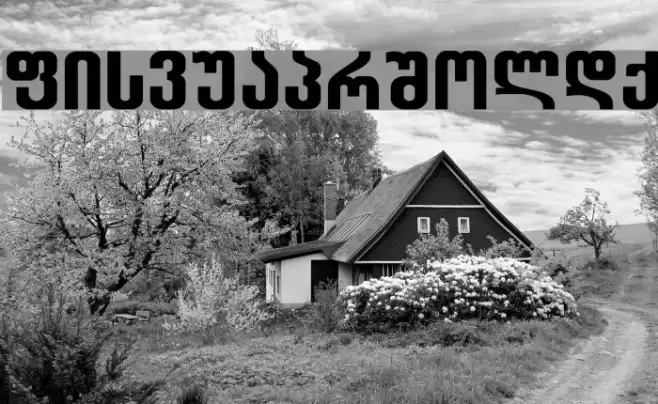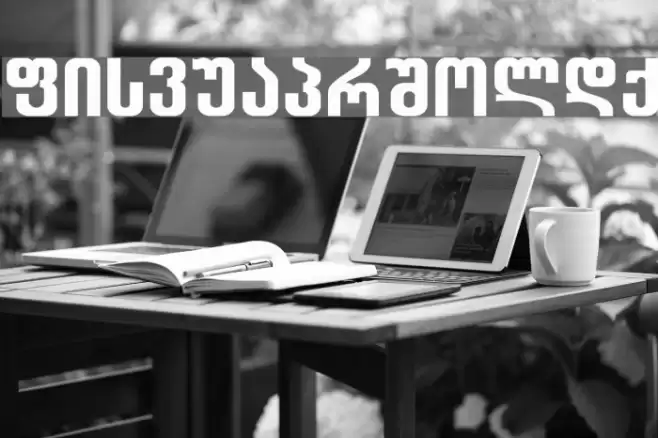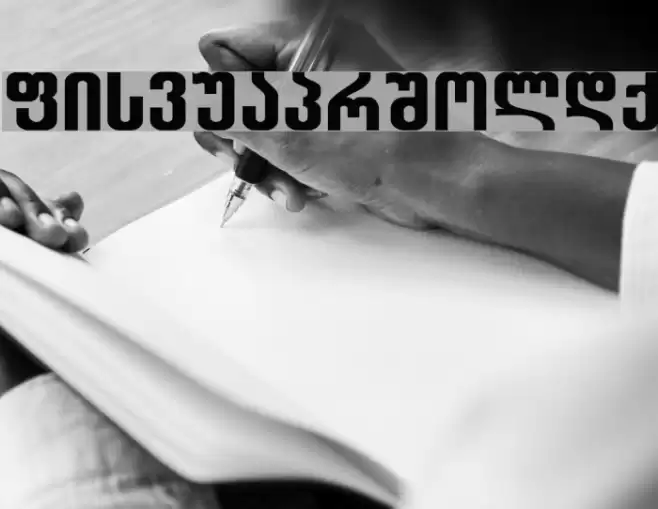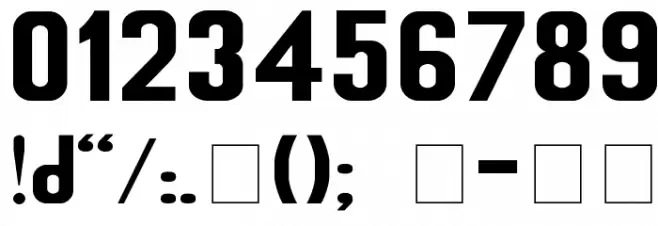
Balavery-ITV Font
Balavery-ITV Description
This font features a bold and robust design, characterized by thick, uniform strokes that convey strength and stability. The characters are well-defined with a modern aesthetic, making them highly legible and impactful. The numbers are consistent with the alphabetic characters, maintaining the same boldness and clarity. Special characters are designed to match the overall style, ensuring a cohesive look across all text elements. This font is particularly suited for attention-grabbing headlines and titles, where its strong presence can be fully appreciated.
A bold, modern font with thick strokes and high legibility from Uncategorized fonts.